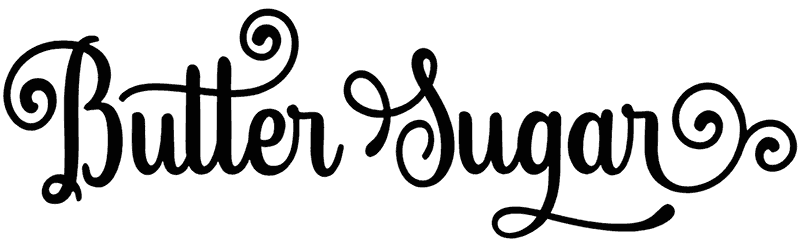
Butter Sugar Font
Butter Sugar is a script font with eye-catching twists whose letters are subtly connected to each other to create an elegant calligraphic style. Using this whimsical font, you can give a formal, yet friendly and familiar look to your writing.
Butter Sugar fits in with a variety of designs like logos, business cards, and will work best when used for body text, headlines, packaging, or children’s accessories.